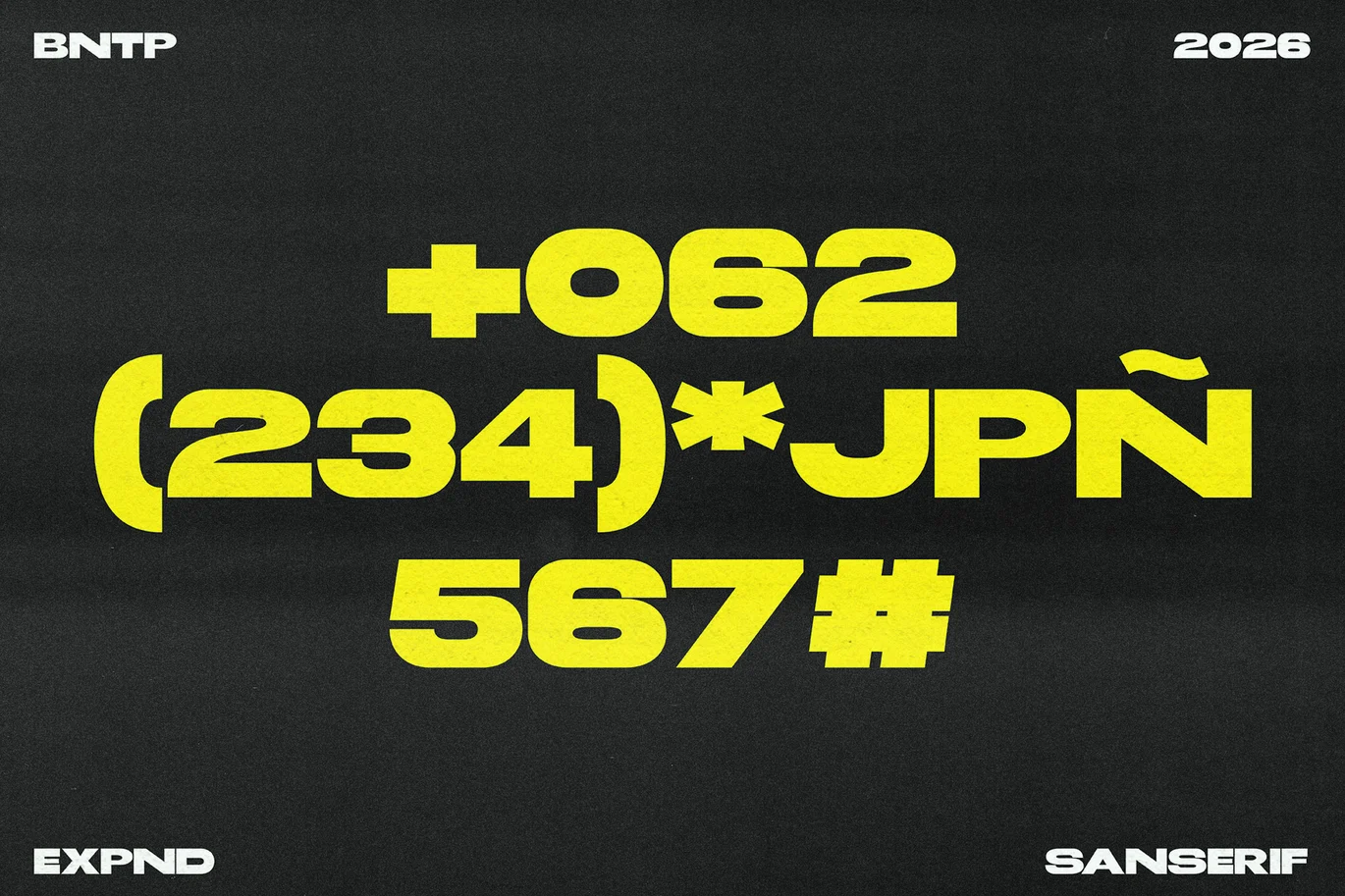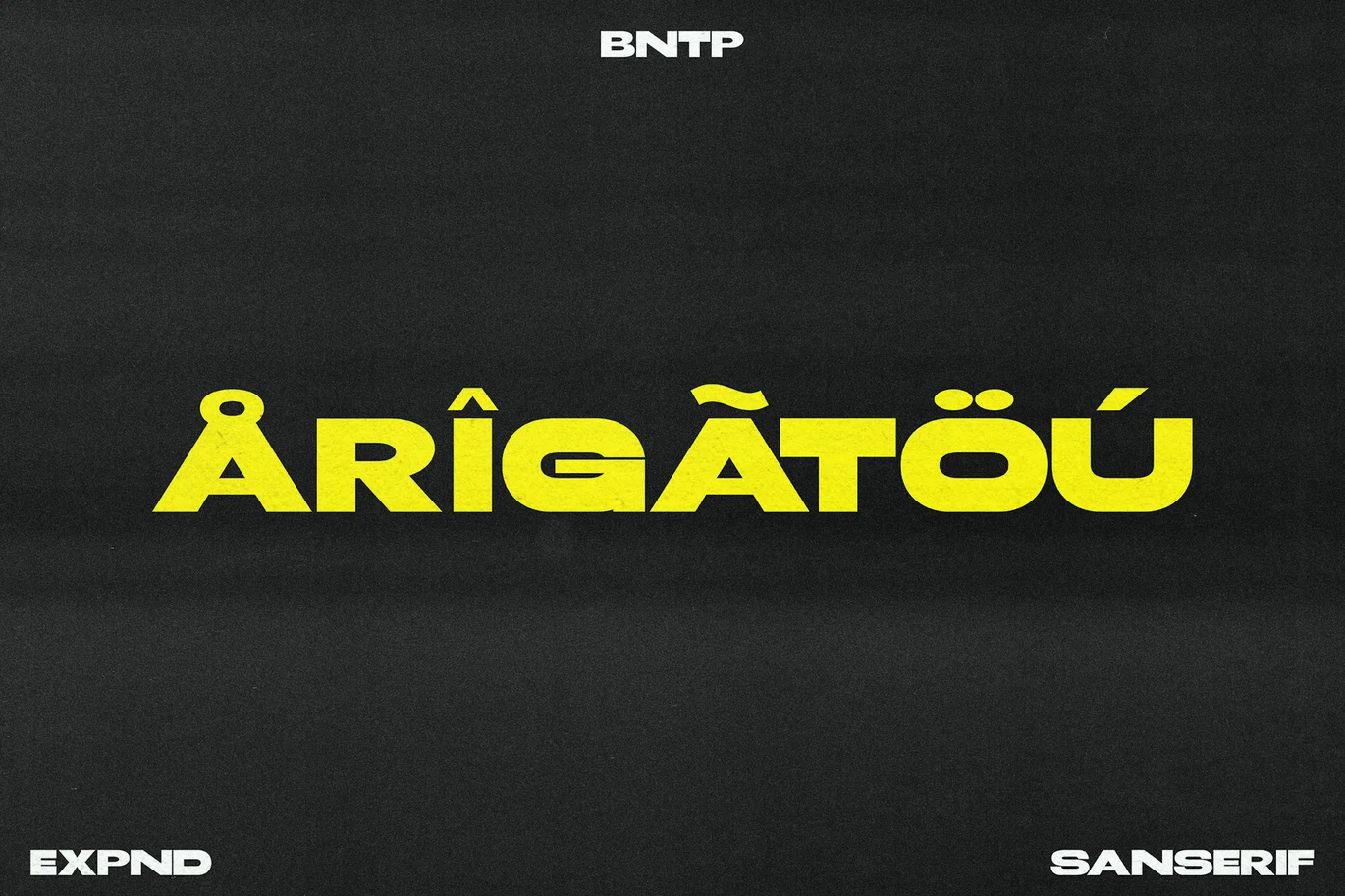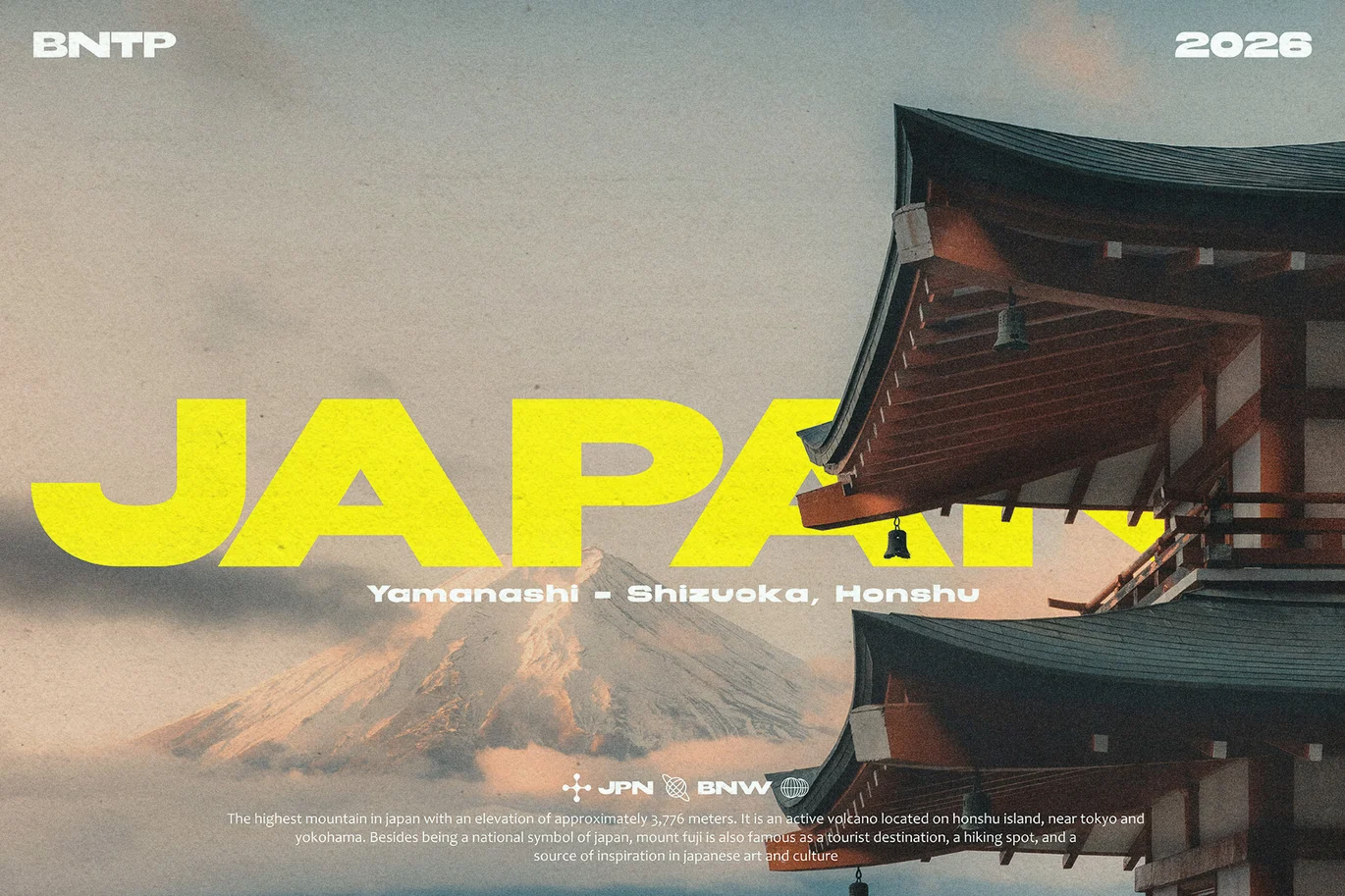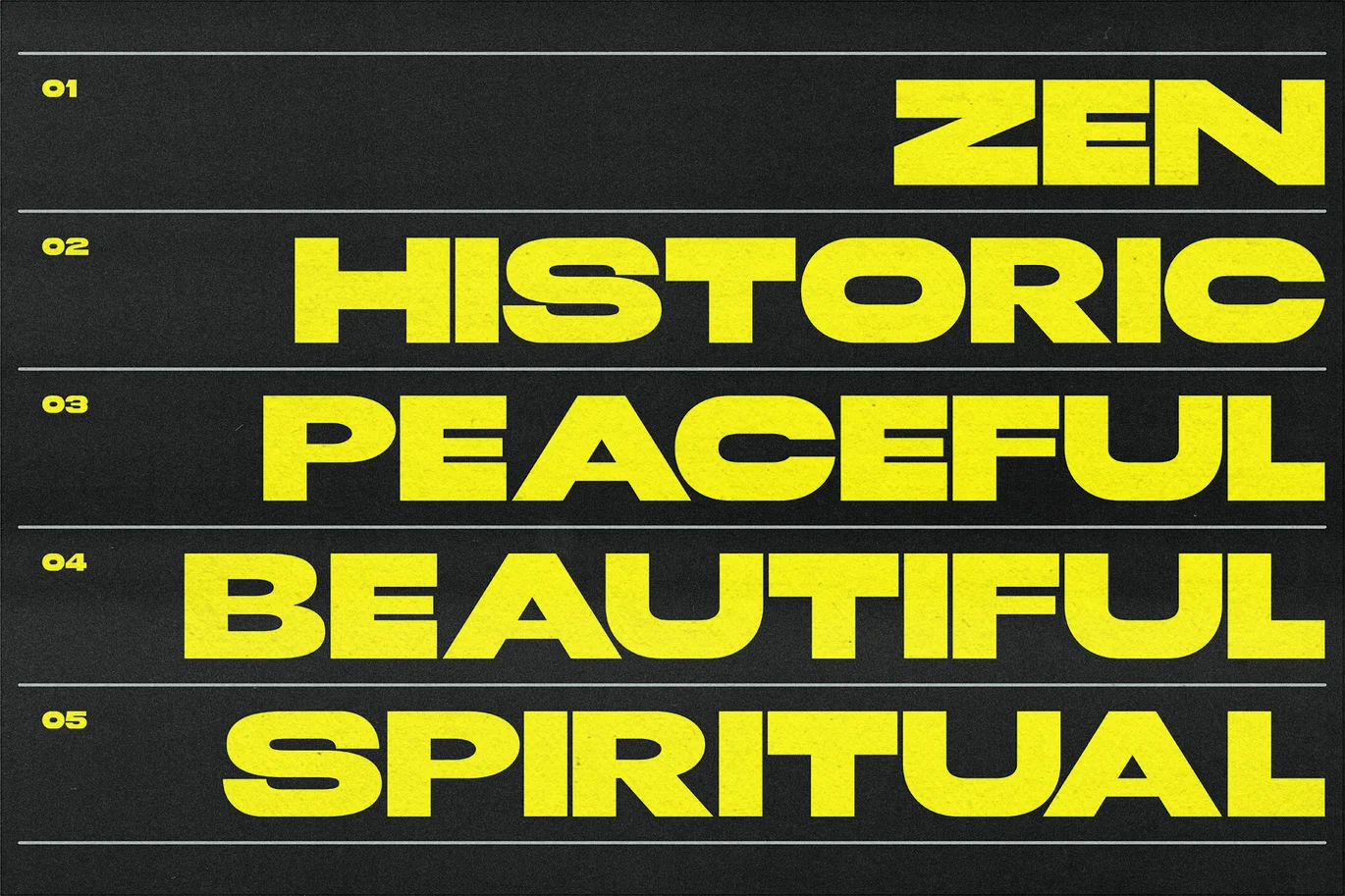
Gyatho – Expanded Sans Font
Gyatho - Expanded Sans built to make every headline stand out with power and confidence. Perfect for sports branding, posters, gaming, and bold visual statements. Designed with strong geometric shapes and sharp character to deliver maximum impact.